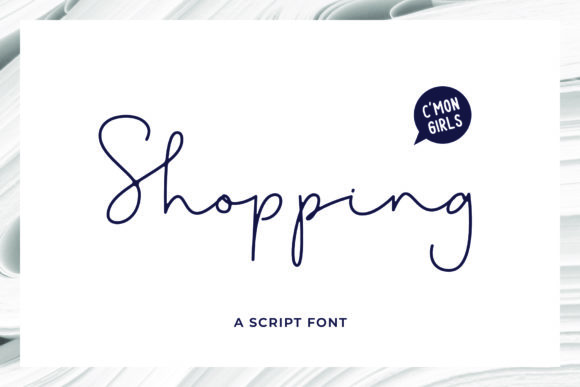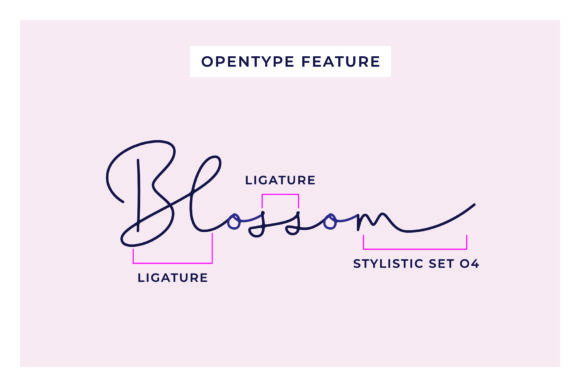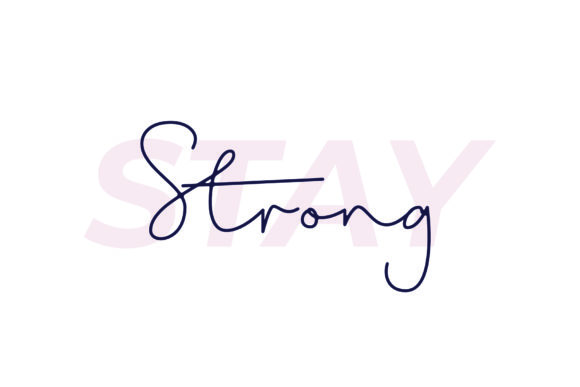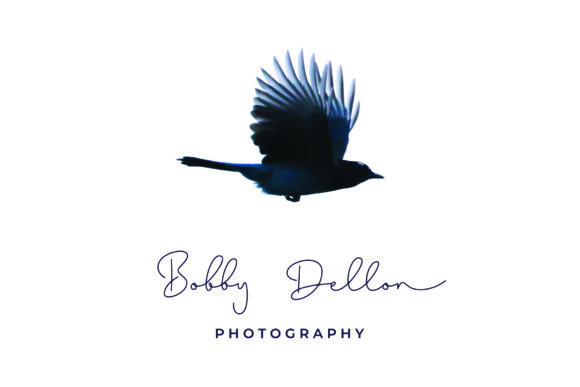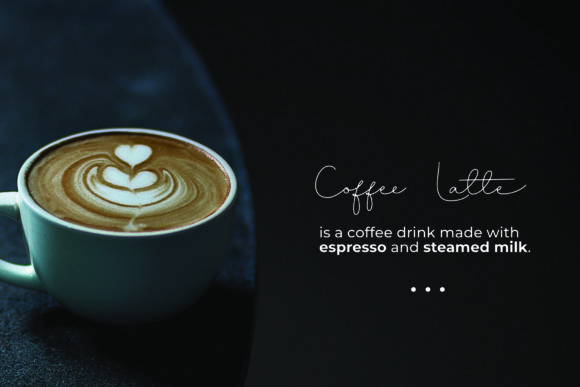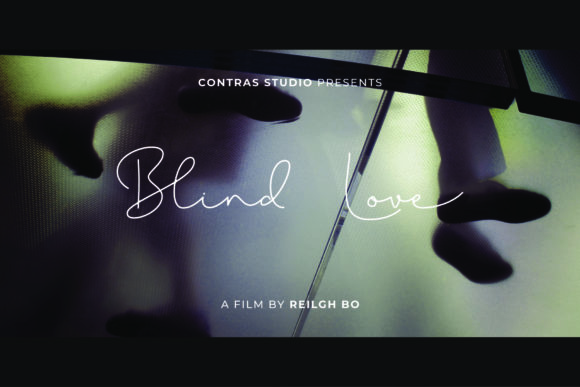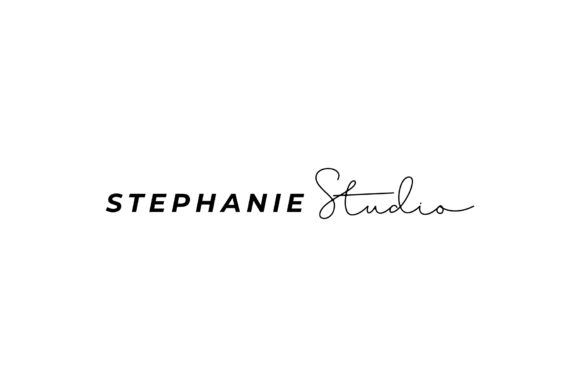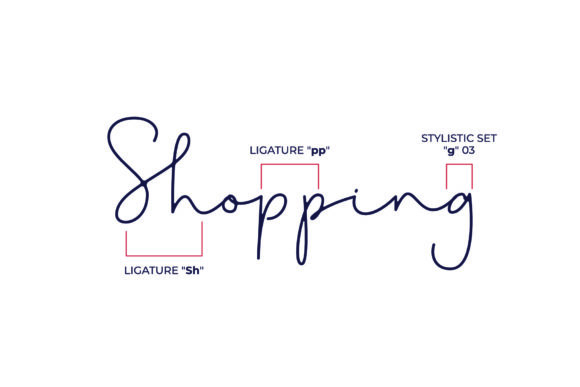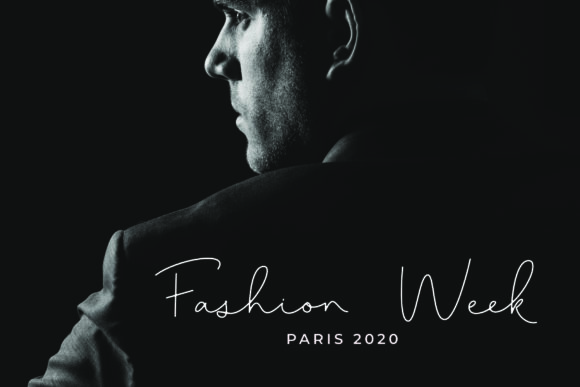
Shopping Font
About Shopping Font
Shopping is an elegant typeface created to look as close to natural handwriting as possible. Fall in love with its casual appeal!